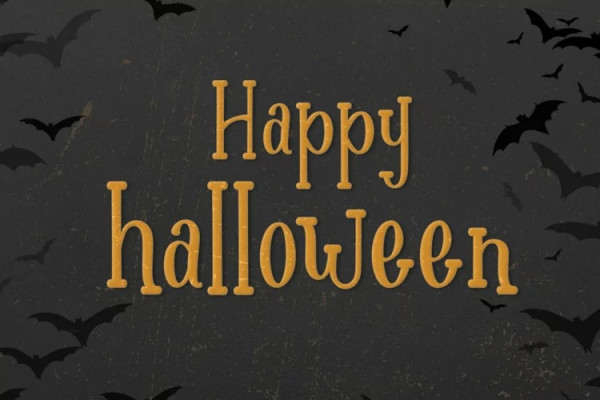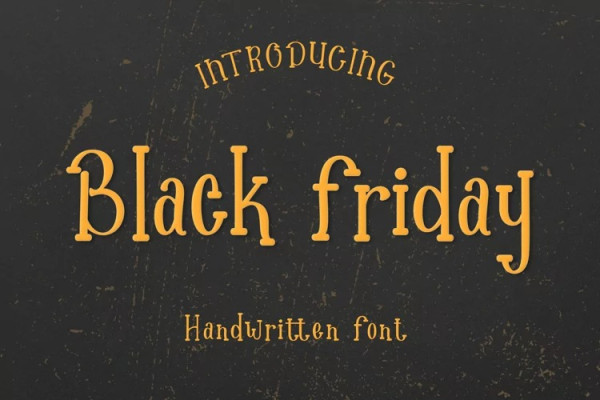
Black Friday Typeface
Black Friday Typeface,  with masculine themes. It matches applies in some designs such as the logotype, brand, packaging, quotes, music poster, t-shirt, cover book and more custom design. The features uppercase, lowercase, numeral, punctuation & symbol, multilingual support.